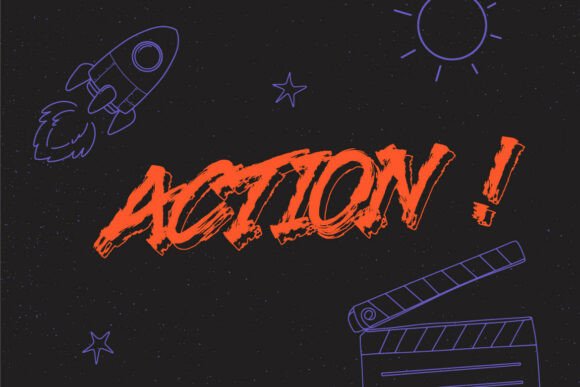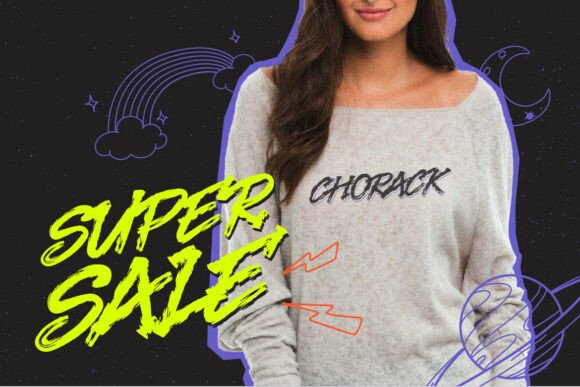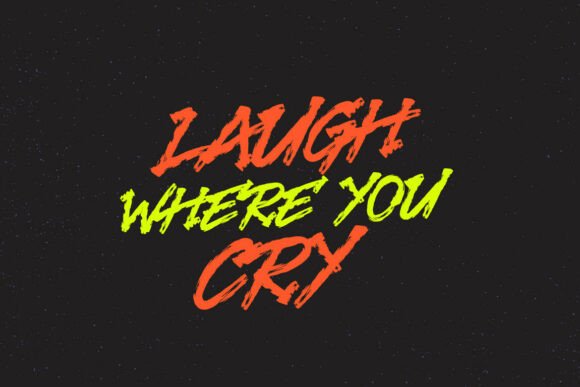
Unleashing Raw Energy: The Chorack Font Revolution
I’ll never forget the design struggle that led me to discover Chorack. I was working on a bold poster project for a local music festival, and my usual go-to fonts just weren’t cutting it. The client wanted something edgy, something that screamed energy and rebellion. After hours of scouring font libraries, I stumbled upon Chorack – and it was love at first sight. This rugged, expressive display typeface brought an unmistakable character to my design, elevating it from ordinary to unforgettable.
So, what makes Chorack so special? Here are the things that have won me over:
- ✨ Raw Energy: Chorack captures the essence of rebellious creativity, making it perfect for designs that need a bold statement.
- ✅ Versatility: From streetwear graphics to digital art, album covers, or editorial layouts, Chorack adapts seamlessly.
- 🔥 Dynamic Flow: The font’s crisp textures and expressive brushstrokes give it a unique, handcrafted feel.
Of course, no font is perfect. A few things to keep in mind:
- 🤔 Legibility at Small Sizes: Chorack is best used at larger sizes (headline or display) due to its bold, textured nature. At smaller sizes, it can become a bit illegible.
- ⚠️ Limited Formality: This font is all about raw energy and rebellion – it might not be the best fit for super formal or traditional designs.
Chorack’s story begins with a young designer named Alex, who grew up surrounded by street art and rebellious music. Frustrated with traditional fonts, Alex poured their heart and soul into creating a typeface that embodied raw energy and creativity. After months of experimentation, Chorack was born – a rugged, expressive font that’s equal parts bold and beautiful.
| Q: What type of projects is Chorack best suited for? | A: Chorack excels in bold, eye-catching designs like posters, album covers, streetwear graphics, and rebellious editorial layouts. |
| Q: Does Chorack support OpenType features? | A: Yes, Chorack supports basic OpenType features, including glyphs and stylistic alternates, which you can access in compatible design software. |
| Q: Is Chorack suitable for body text? | A: While Chorack is primarily a display font, it’s best used at larger sizes. For body text, consider a more legible font to ensure readability. |
With Chorack, you’re not just choosing a font – you’re embracing a design attitude. It’s time to make a statement and let your creativity shine. Unleash the raw power of Chorack and take your designs to the next level.